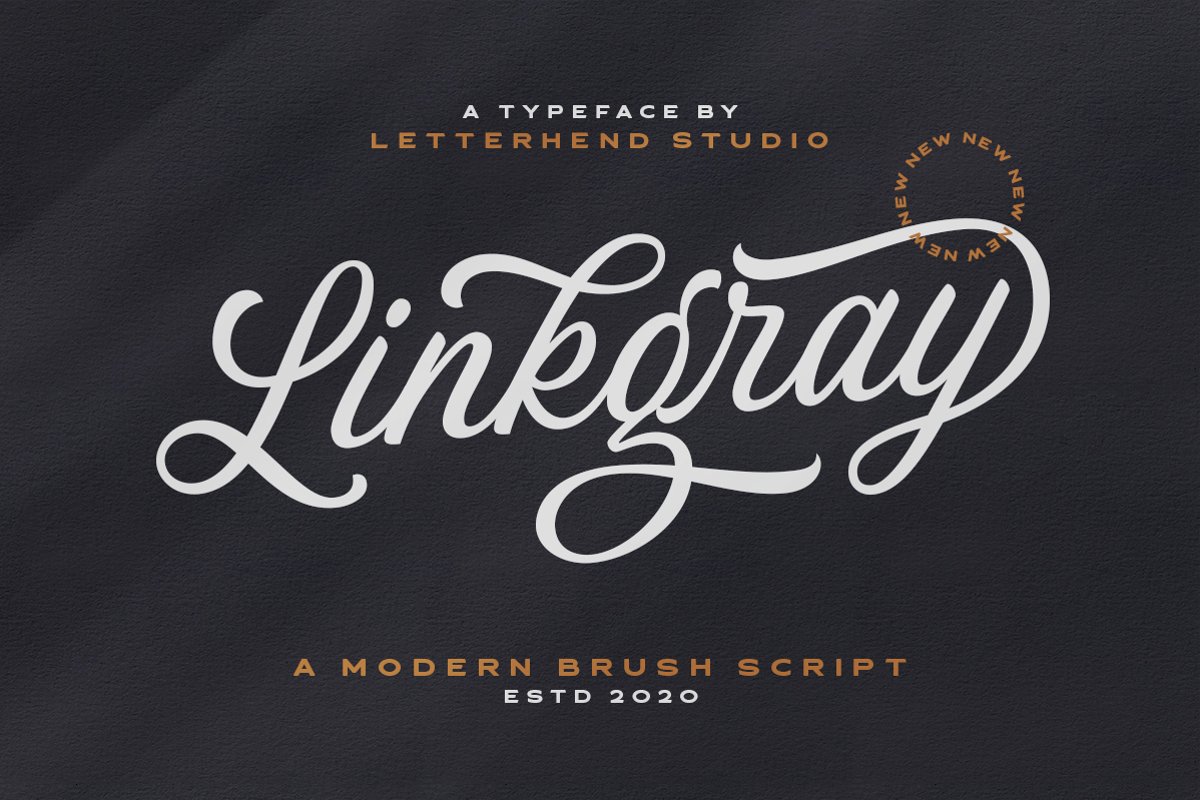
Linkgray Script
Linkgray
Please welcome our newest script typeface, Linkgray Script, a beautiful script typeface with unique alternates and swashes. This font perfectly made to be applied especially in logo, and the other various formal forms such as invitations, labels, logos, magazines, books, greeting / wedding cards, packaging, fashion, make up, stationery, novels, labels or any type of advertising purpose.
• uppercase & lowercase
• numbers and punctuation
• multilingual
• ligatures
• alternates
• swashes